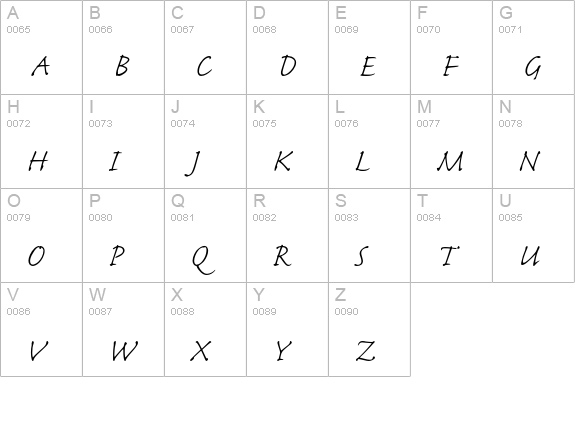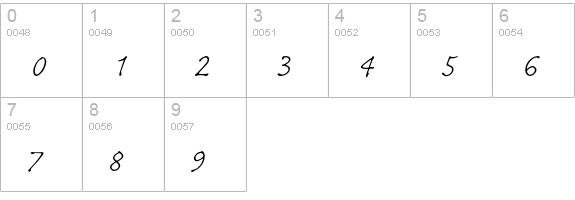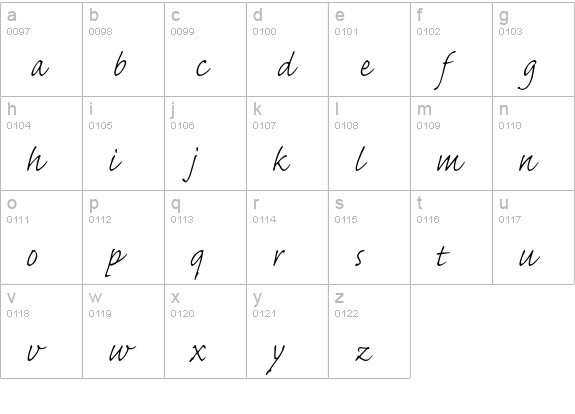
Caflisch Script Pro Light is a refined, elegant variant in the Caflisch typeface family \xE2\x80\x94 well suited to elegant body text, refined sub-headings, and luxury branding.
Caflisch Script Pro Light is a delicate and elegant font that exudes a sense of sophistication and grace. With its flowing and graceful strokes, this font brings a touch of beauty to any design project. Perfect for wedding invitations, elegant branding, or romantic quotes, Caflisch Script Pro Light adds a touch of refinement to any text. Its light weight and thin lines create a delicate and airy feel, making it ideal for projects that require a subtle and refined touch. The free availability of Caflisch Script Pro Light font makes it even more appealing. Now, you can easily add this beautiful script font to your collection without breaking the bank. Simply head over to FontsMarket.com and download it for free. Whether you're a designer looking to enhance your typographic toolbox or someone who simply appreciates the beauty of calligraphy, Caflisch Script Pro Light is a must-have font. Its timeless elegance and freely available download make it a versatile and valuable addition to any project.